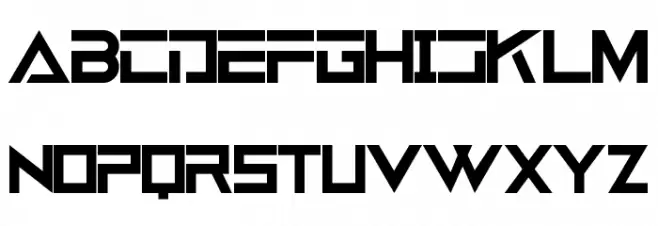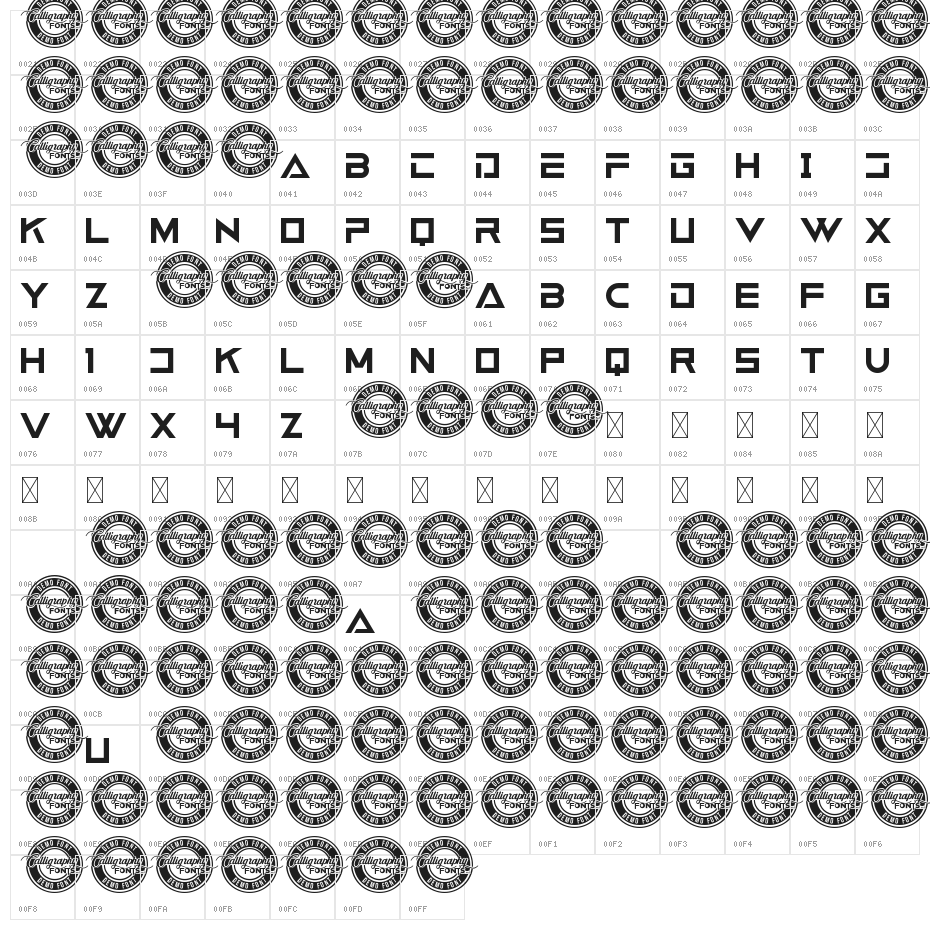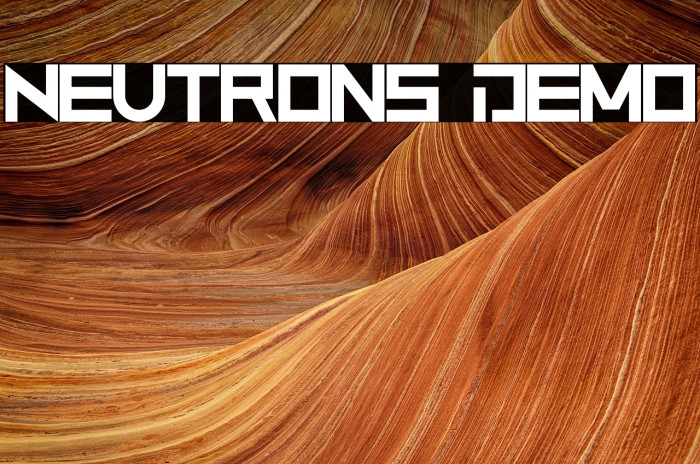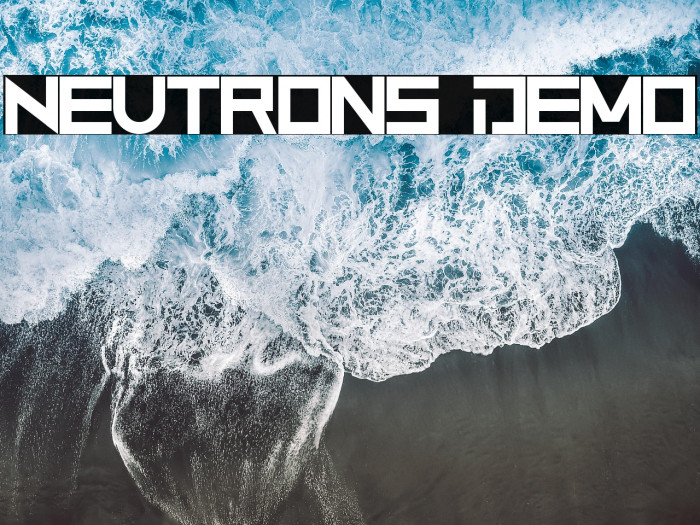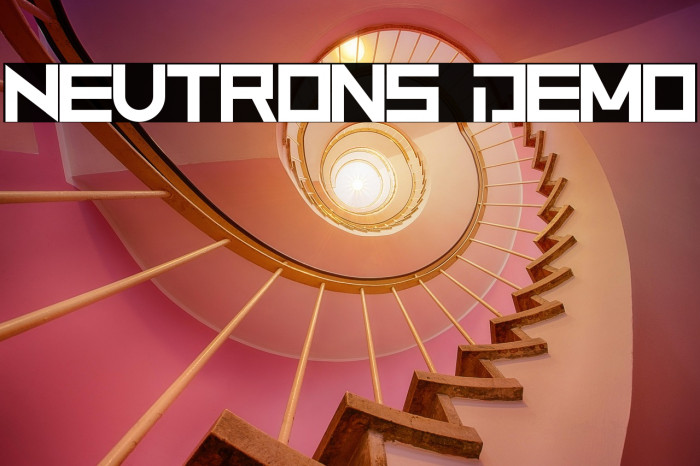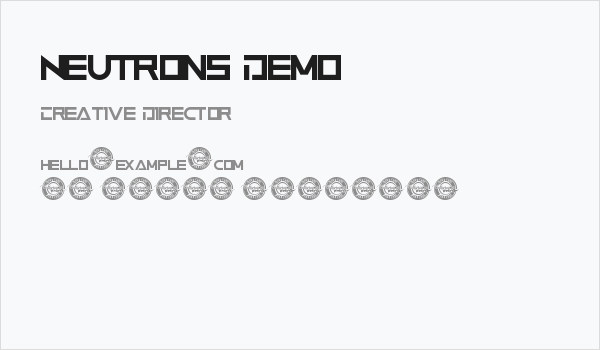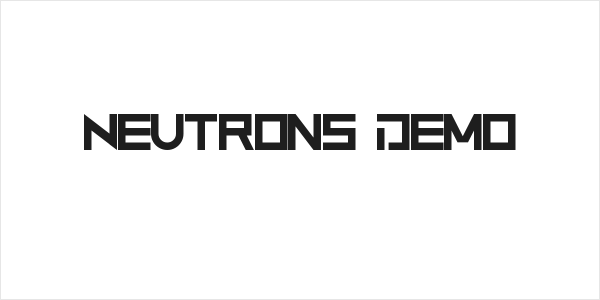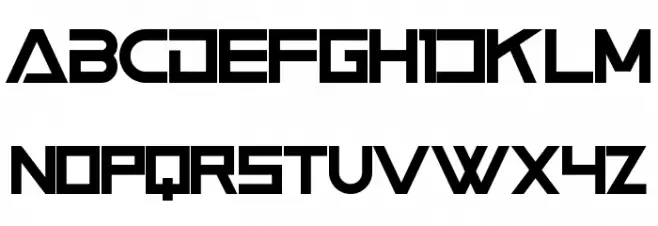
Neutrons Demo Font
Neutrons Demo Description
This font features a bold, geometric design with a futuristic and industrial feel. The characters are constructed with sharp angles and straight lines, giving it a modern and edgy appearance. The uppercase letters are uniform in height and width, creating a cohesive and structured look. The font's style is reminiscent of digital or technological themes, making it suitable for projects that require a contemporary and innovative touch. The absence of curves and the emphasis on angular forms contribute to its distinctive and striking visual impact.
Use CaseLogos, Headlines
Proposed ProjectsIdeal for technology branding, sci-fi movie posters, video game titles, and modern logos.